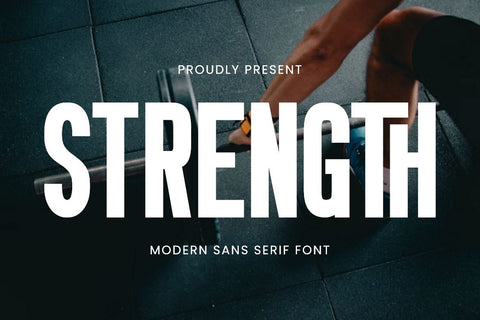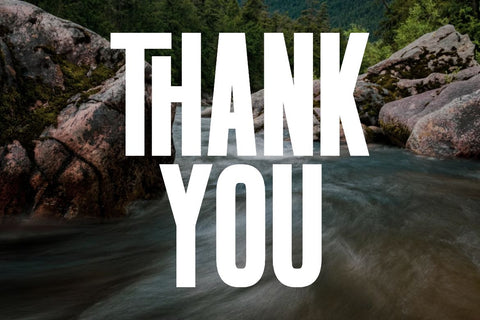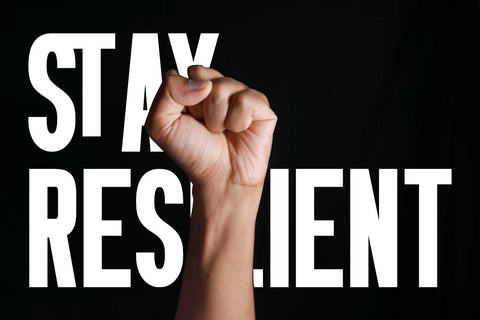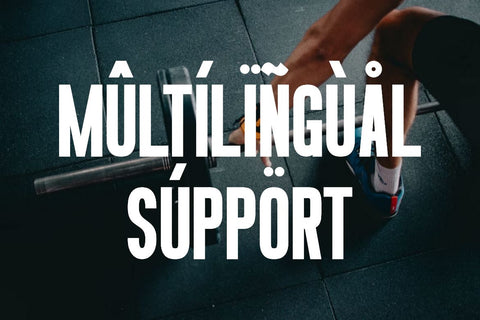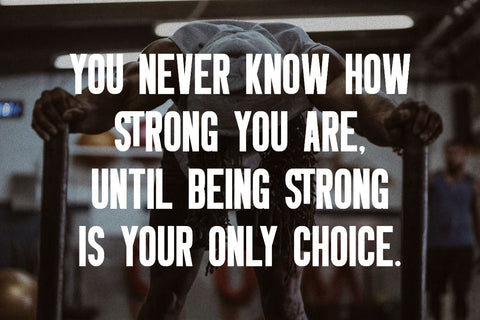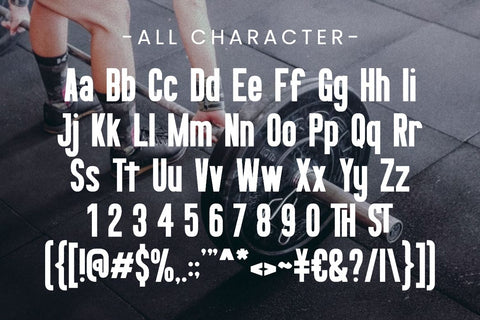
Strength - Sporty Sans Serif Font
Strength is a powerful and dynamic modern sport sans serif font that projects an undeniable sense of vigor and determination. Its bold, robust, and clean letterforms are meticulously crafted to convey resilience and athletic energy, making your message resonate with clarity and impact. This typeface is designed for high performance, seamlessly fitting into projects that demand strong visual appeal and a contemporary edge. Strength is perfect for adding a touch of modern power and clear messaging to a wide range of creative endeavors. Imagine Strength enhancing impactful sports posters, energetic branding for fitness, professional t-shirt designs for teams, precise labels for athletic gear, contemporary signage for gyms, personalized tumblers, and a plethora of other unique crafts. Its clean and commanding style makes it exceptionally well-suited for products targeting end-users who enjoy crafting with Cricut for sharp cuts, sublimation for high-quality merchandise, laser cutting for bold details, and for producing appealing stickers, planner elements, and POD (Print on Demand) friendly apparel. Strength's minimalist yet commanding presence will ensure your creations stand out, offering a blend of modern design and uncompromising legibility for any project aiming for a powerful and athletic aesthetic.